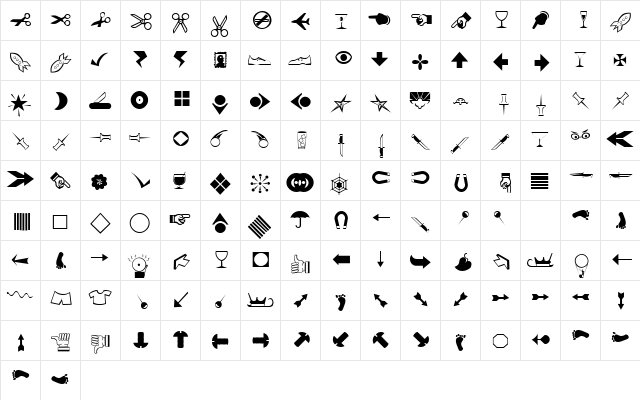
BillsDingbats.fog fog Font Preview
BillsDingbats.fog fog
Design Context for BillsDingbats.fog Typeface
BillsDingbats.fog is a composed and adaptable typeface that performs quietly and consistently across a wide range of design contexts.